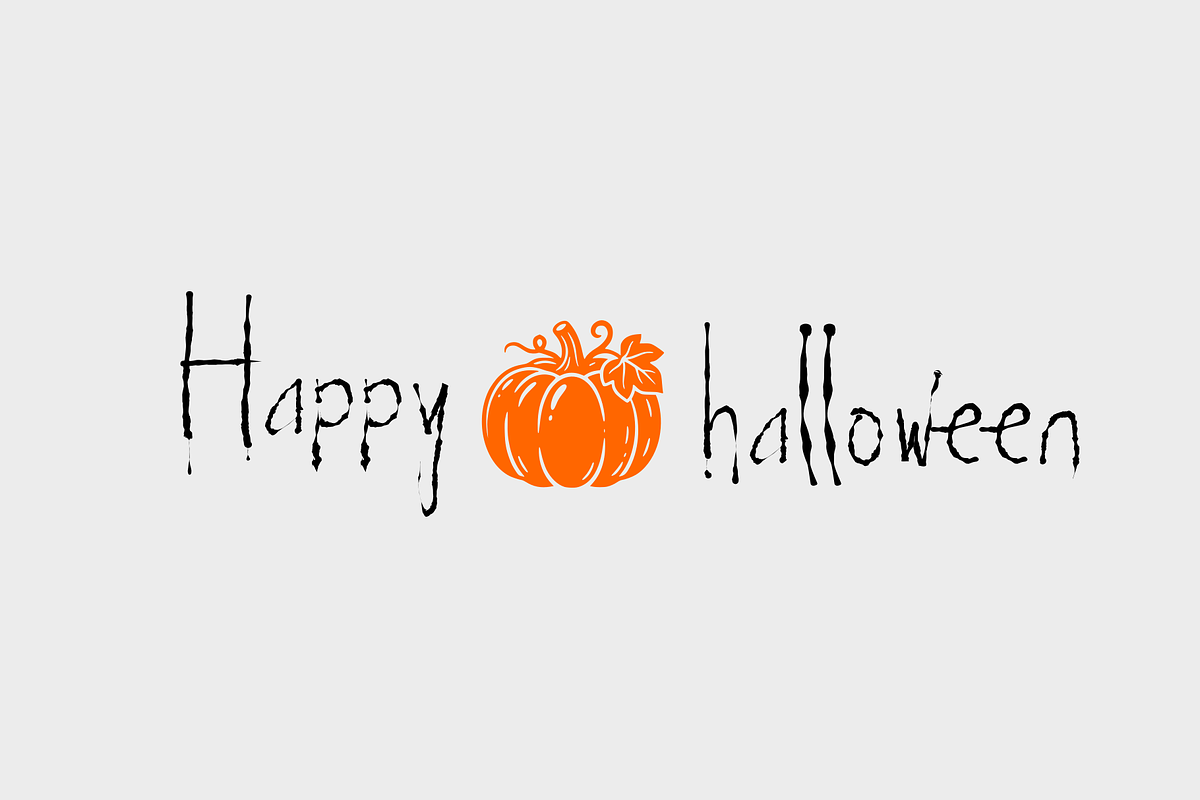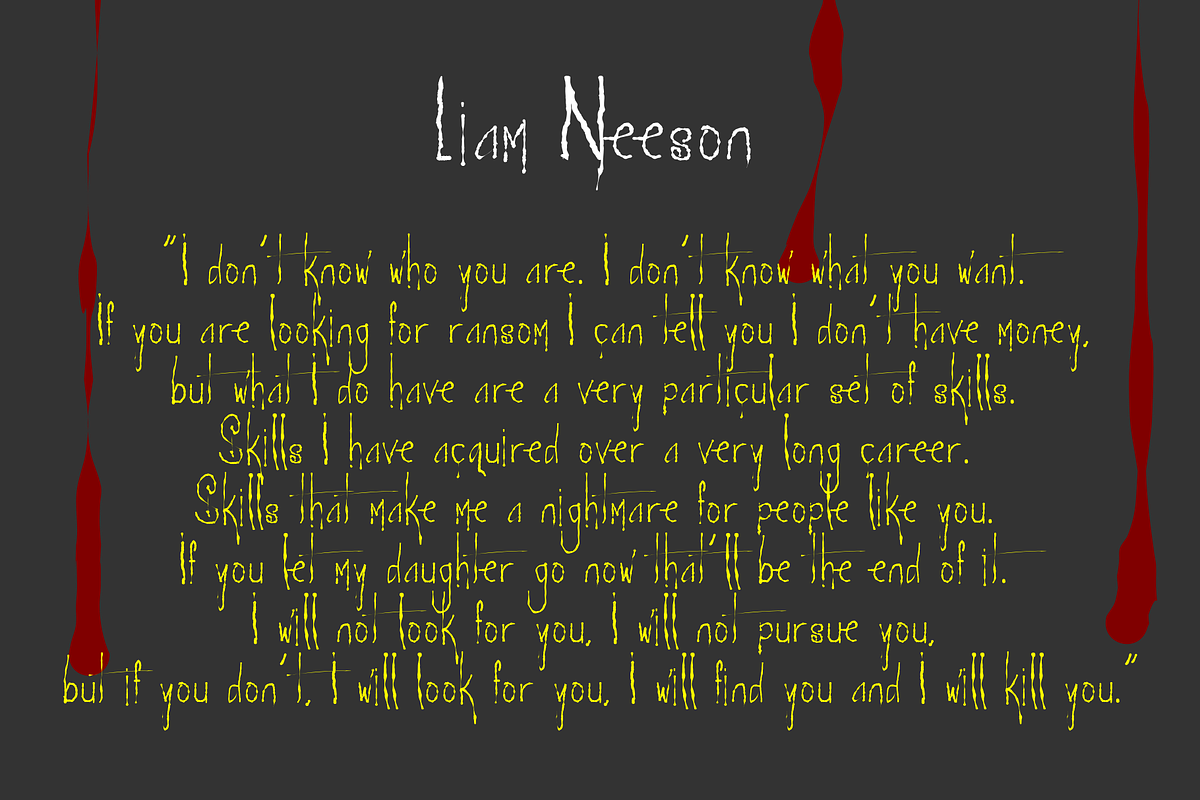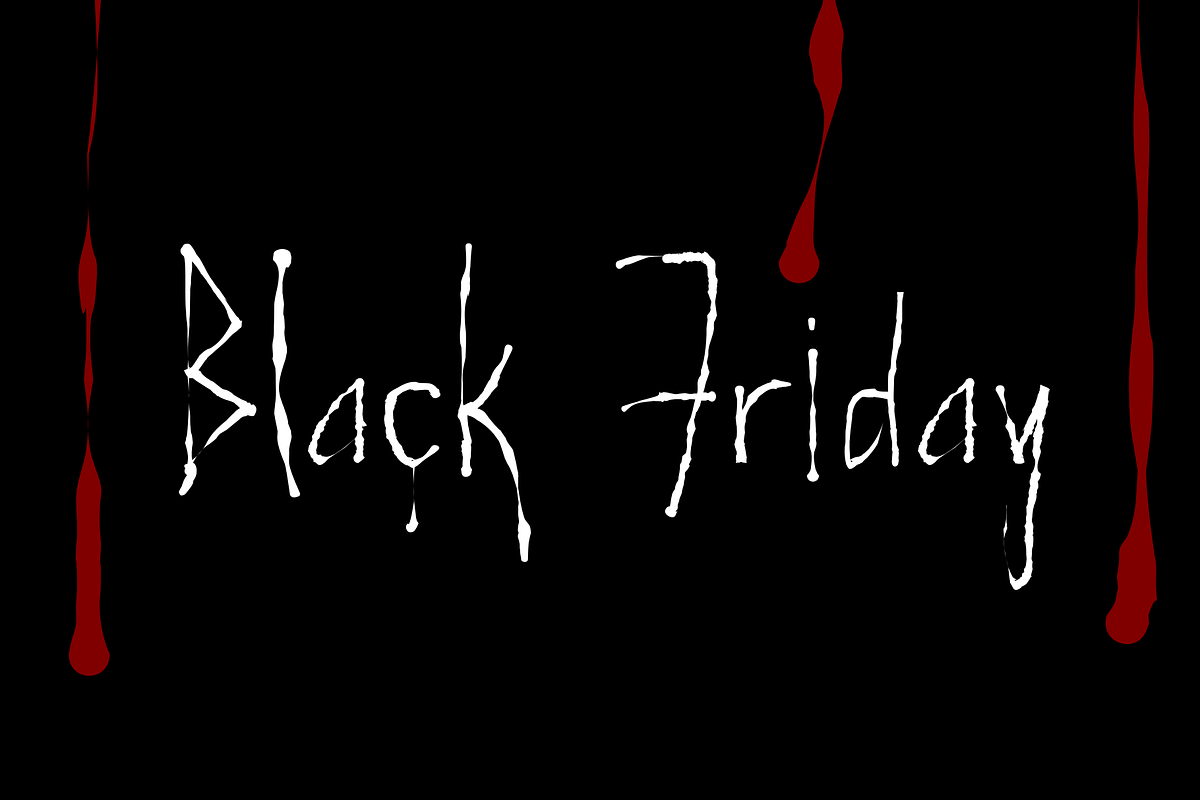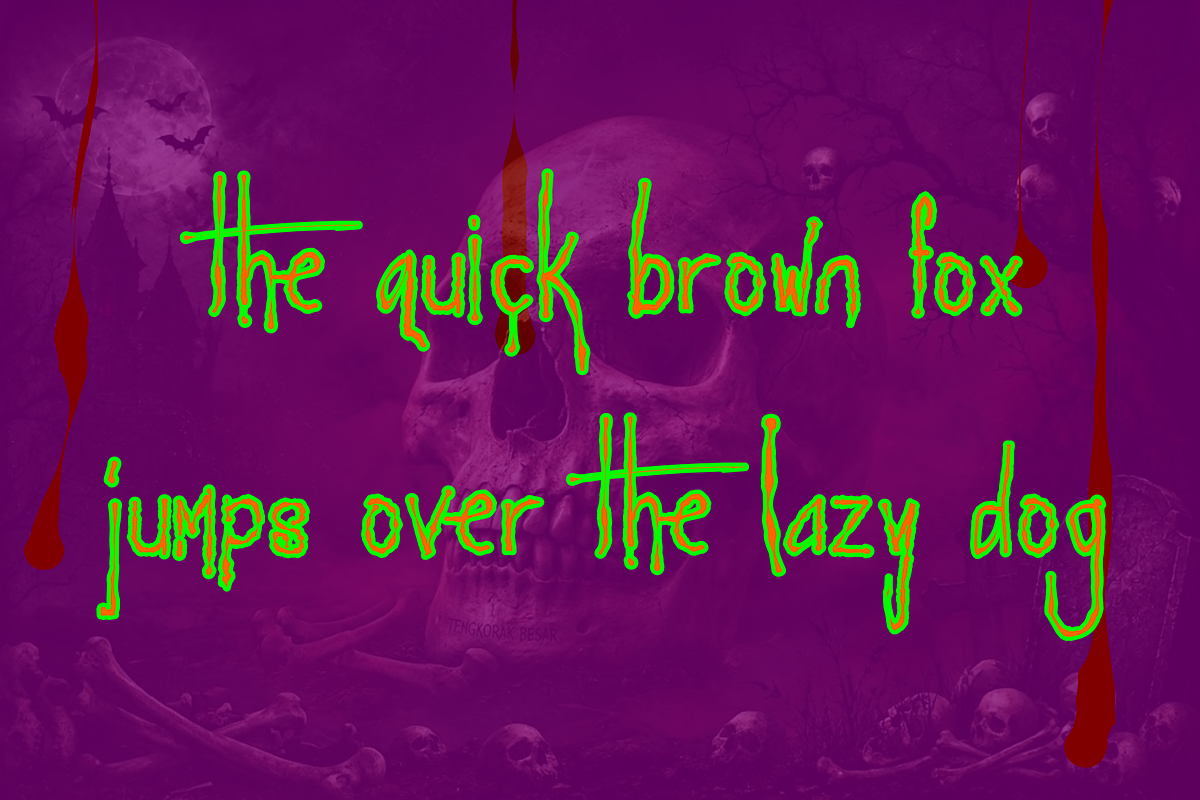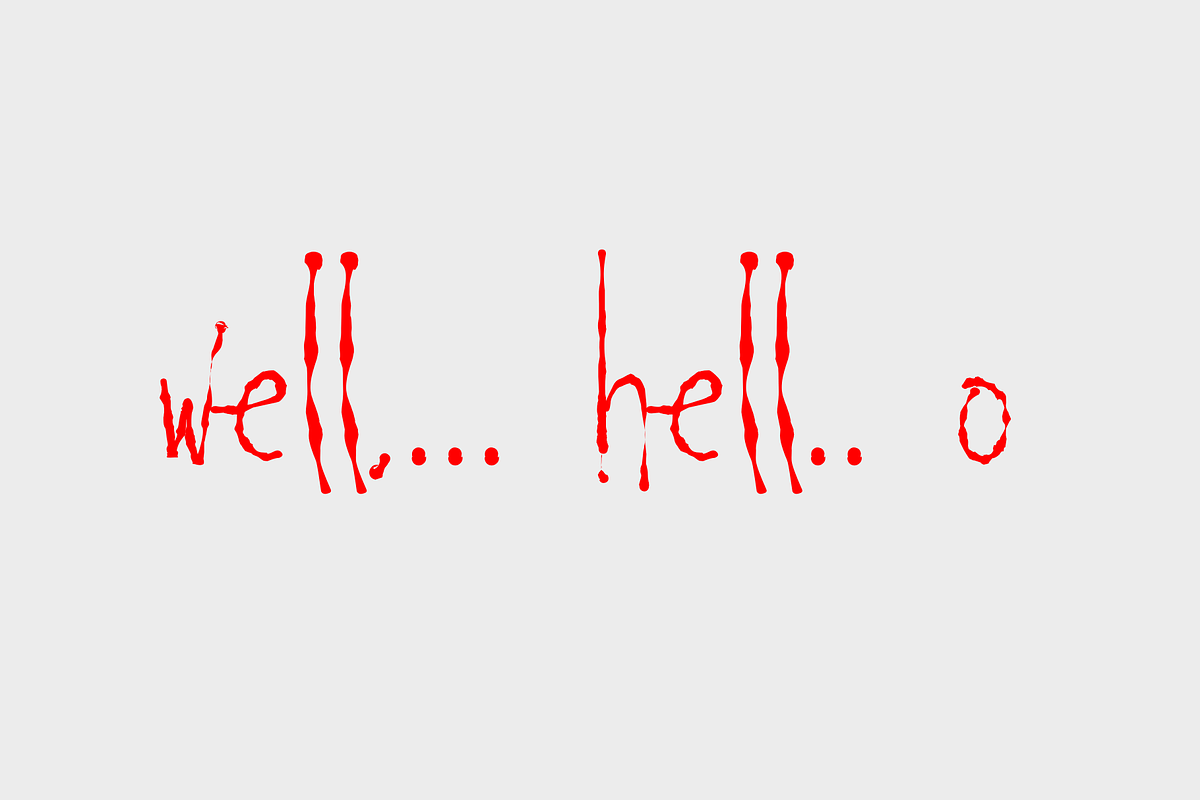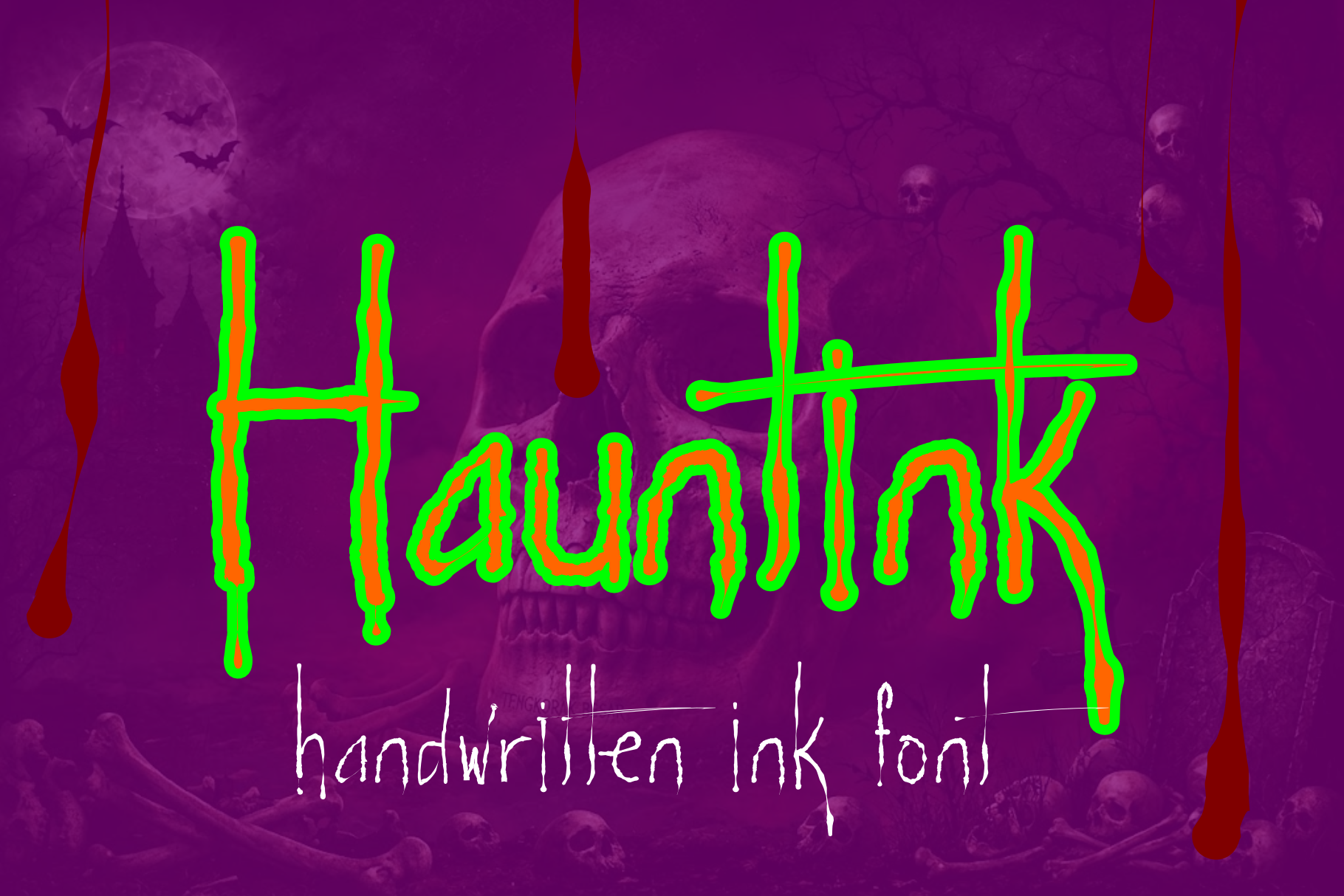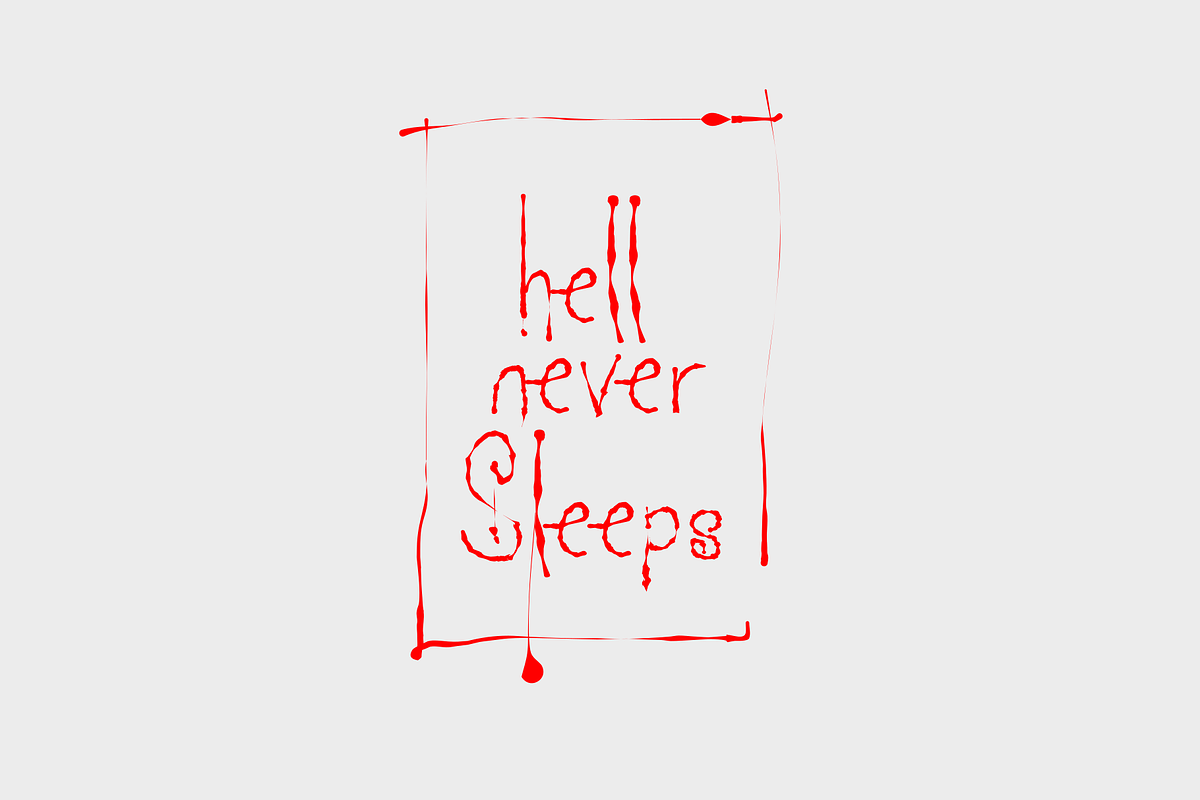
Hauntink - Horror Bleed Ink Font
Hauntink – Halloween Horror Font
Hauntink is a creepy hand-drawn display font created to bring a dark, eerie, and mysterious atmosphere to your designs. With its rough strokes, irregular shapes, sharp details, and distressed handwritten character, Hauntink feels like a sinister message scrawled in the darkness.
Perfect for Halloween designs, horror posters, scary movie titles, haunted house graphics, T-shirts, merchandise, album covers, logos, stickers, social media artwork, book covers, event invitations, and spooky branding.
Its raw and imperfect appearance gives every word an unsettling personality while maintaining a strong and distinctive visual impact. Hauntink works especially well for projects that need a creepy, gothic, underground, or horror-inspired aesthetic.
Whether you're designing a Halloween campaign, horror-themed artwork, or a dark streetwear collection, Hauntink adds an instantly recognizable haunted touch to your typography.
Halloween Designs
Horror Posters
Scary Movie Titles
Haunted House Graphics
T-Shirt & Merchandise
Horror Branding
Album & Book Covers
Logos & Badges
Stickers
Invitations & Party Designs
Spooky Quotes
Hauntink — leave your mark in the dark.